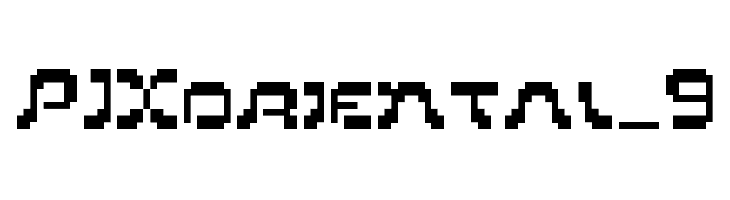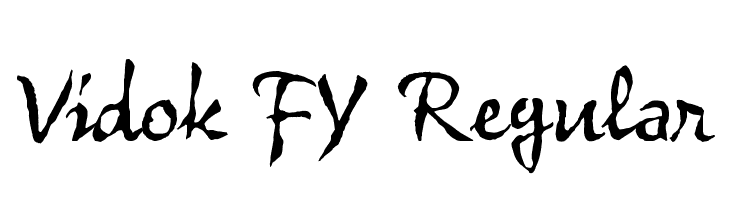
A bold, brush-like font with dynamic, angular strokes and a modern artistic flair.
A flowing, elegant cursive font with a classic yet modern appeal.
A bold, brush-style font with textured, hand-painted strokes.
A hand-drawn, medieval-inspired font with dynamic strokes and organic shapes.
A modern, geometric font with bold uppercase and consistent lowercase characters.
A bold, pixelated font with a retro digital style.
A pixelated, retro-style font with bold, blocky characters and rounded corners.
A decorative font with a hieroglyphic-inspired design and rounded edges.
A playful, bold font with rounded, smooth letterforms.